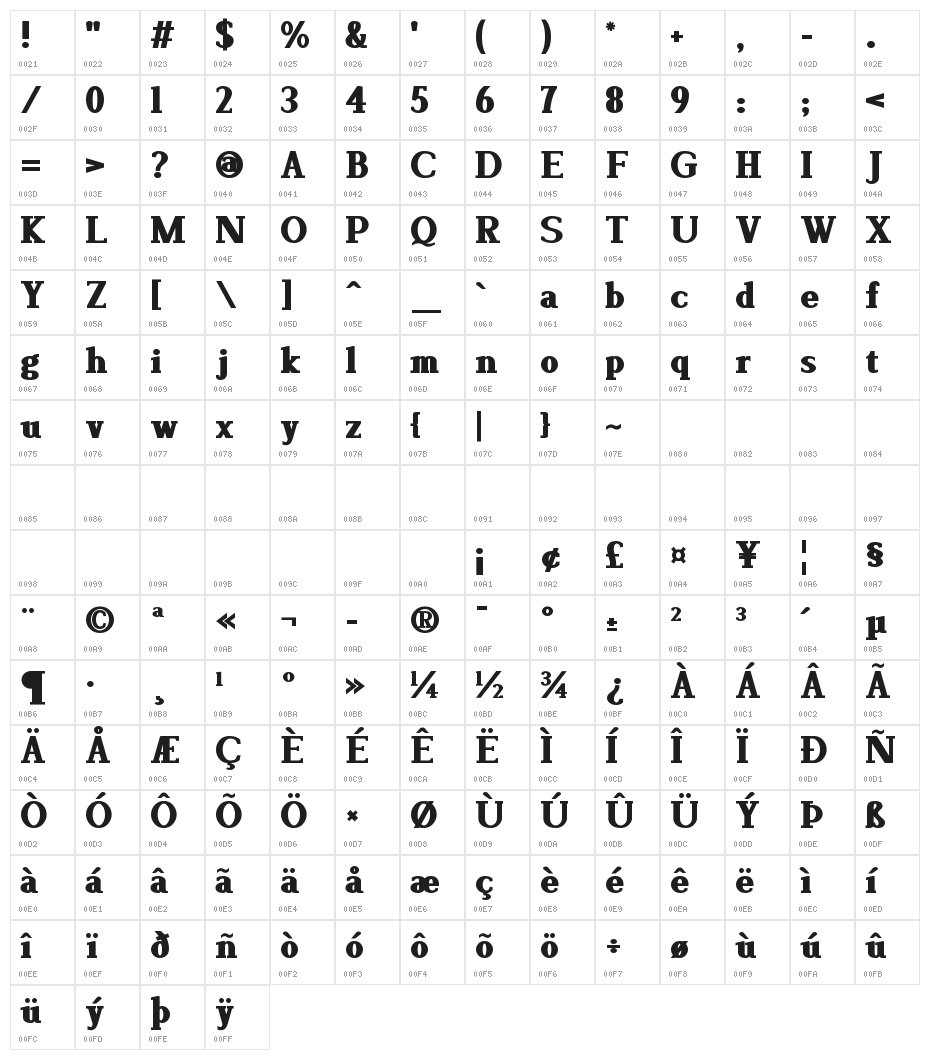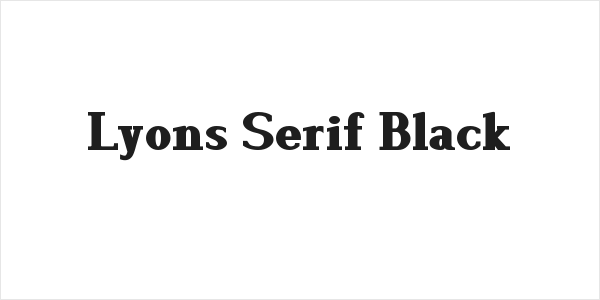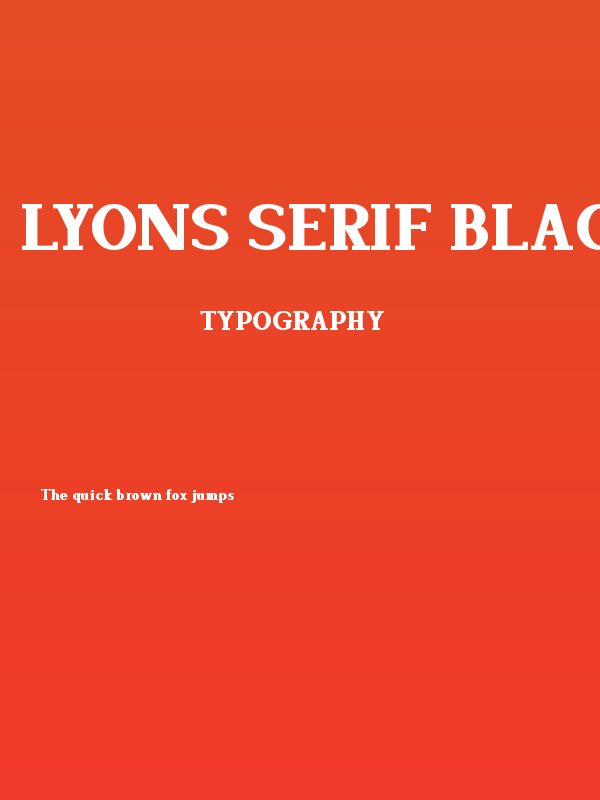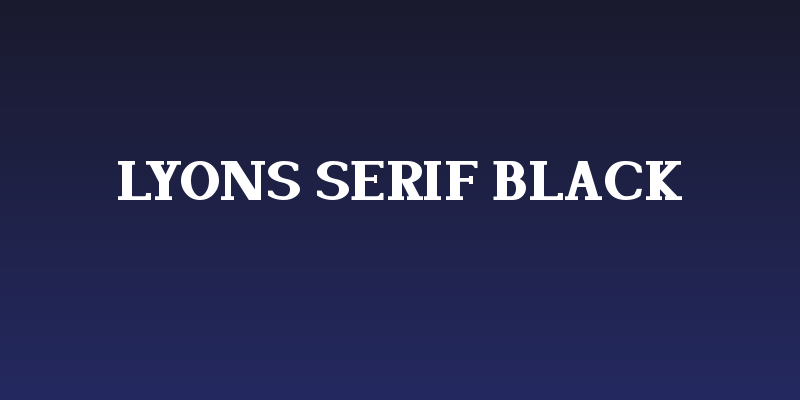
Lyons Serif Black Font
Lyons Serif Black Description
This font features a bold and commanding presence with its thick, strong strokes and pronounced serifs. The uppercase letters are robust and authoritative, while the lowercase letters maintain a consistent weight, offering a harmonious balance. The numerals are clear and easily distinguishable, making them suitable for various applications. Special characters are designed with the same boldness, ensuring they stand out effectively. The overall design exudes a classic yet modern feel, making it versatile for both traditional and contemporary projects.
| Proposed Projects | Ideal for headlines, posters, branding, and editorial design where a strong, impactful presence is desired. |